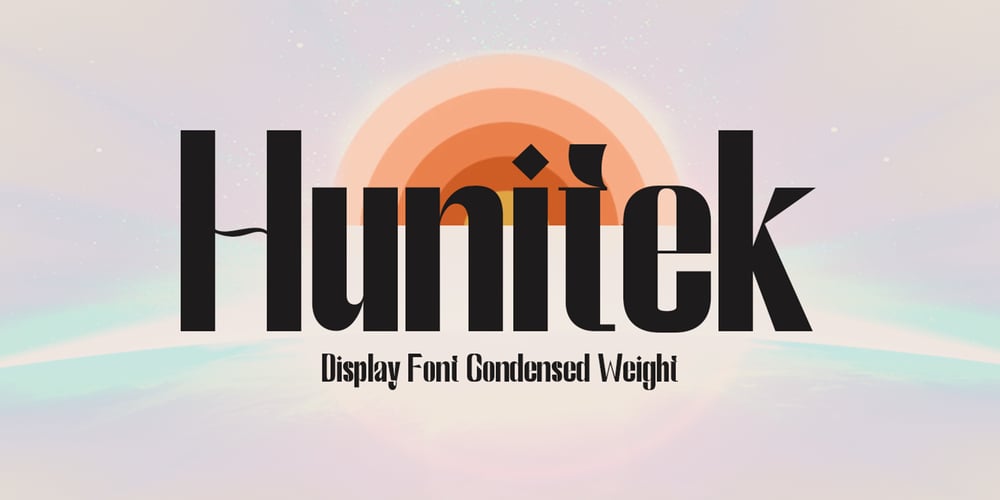
Hunitek Font Family was designed by khaidir and published by Gatype. Hunitek contains 1 styles and family package options. The Hunitek Display is stylish with extreme cuts, sharp corners and interactive straps. Characters that seem solid are spread across each replacement letter, with different styles and maximum personality. Bold character separation and considered binding standards create a type that is sturdy, modern and attractive. suitable for logos, emblems, magazines, quotes etc.Hunitek is a modern Display font, each letter is carefully crafted to make your text look unique.Feel free to message me if you have any questions!